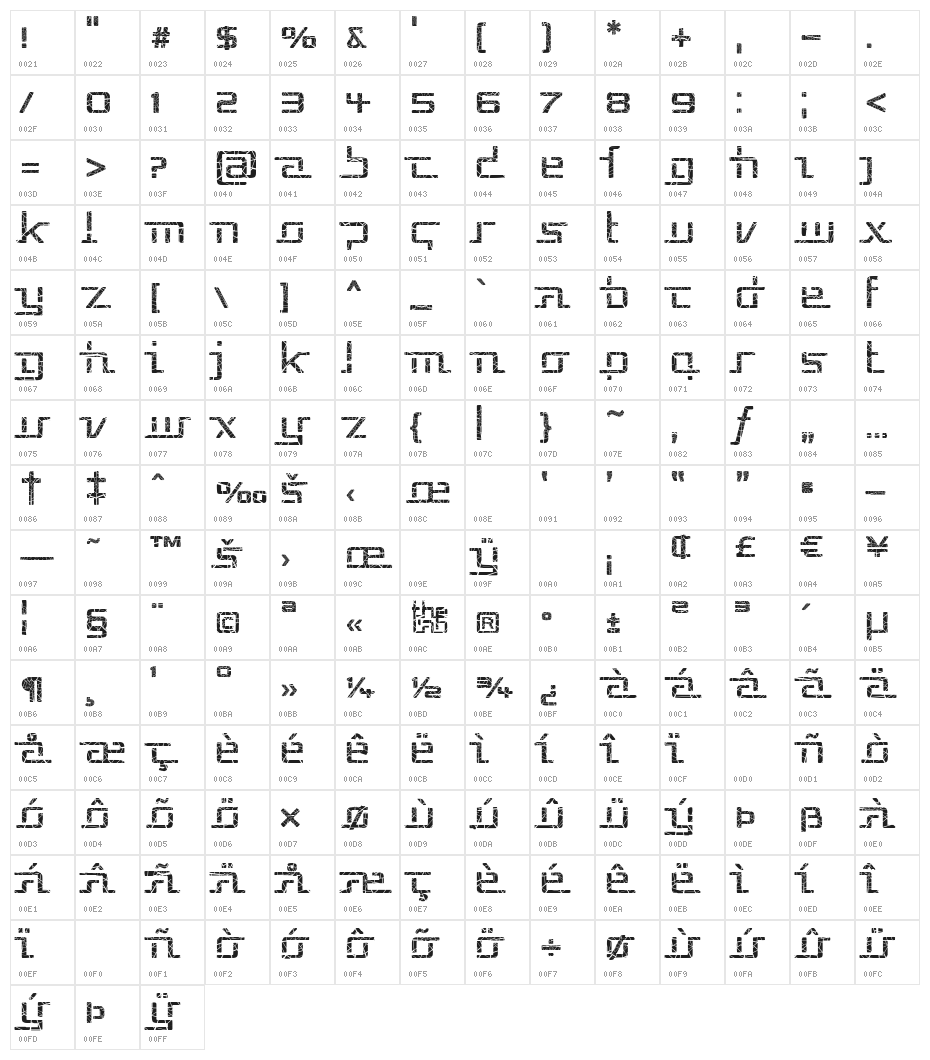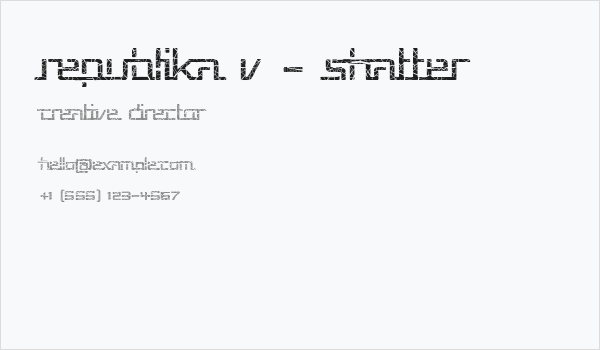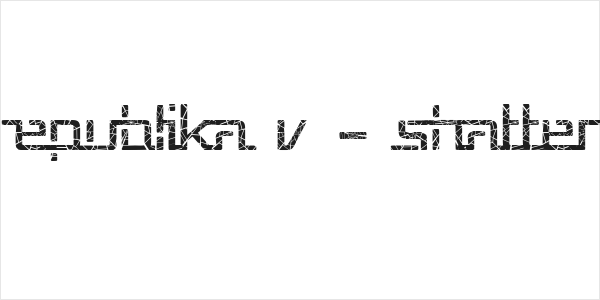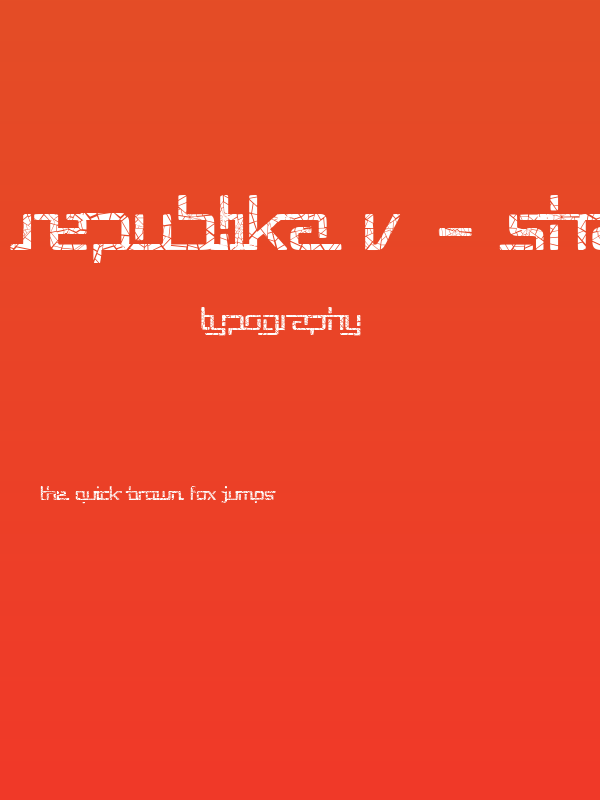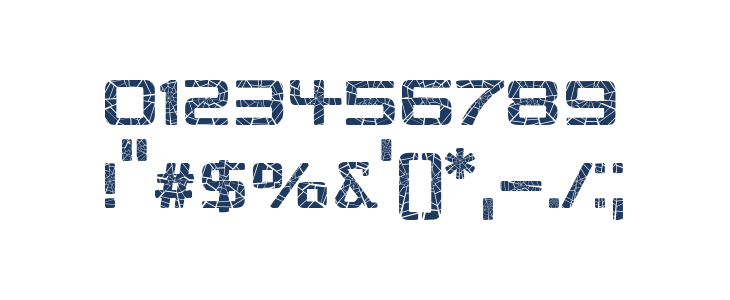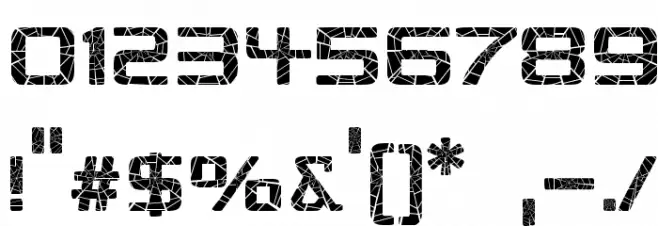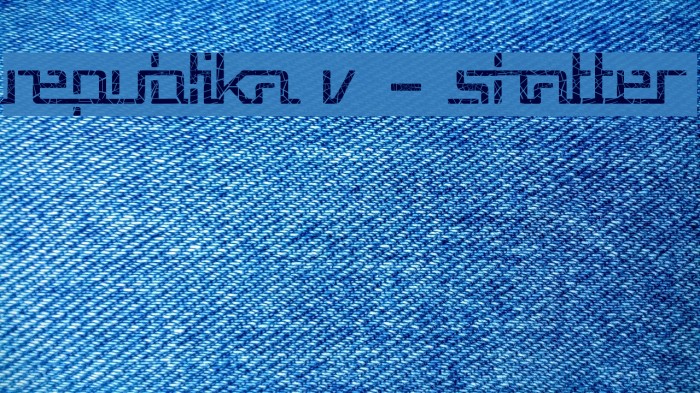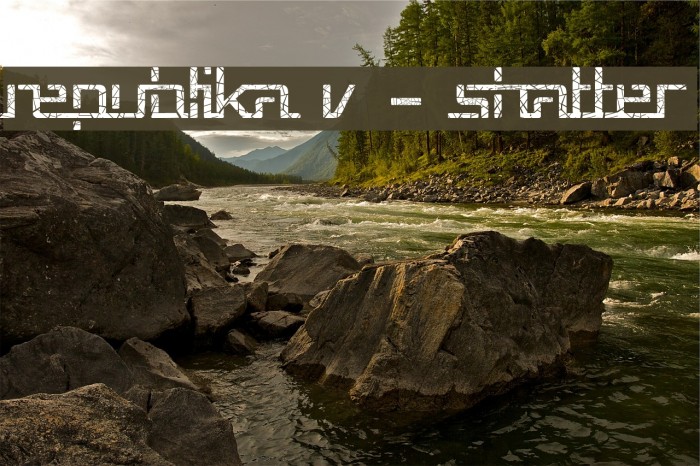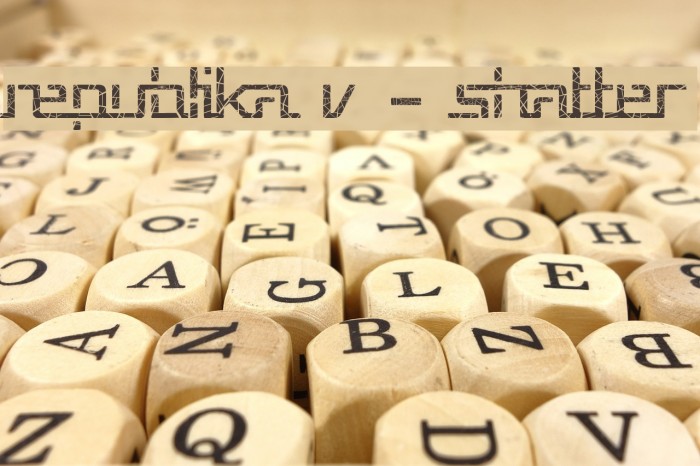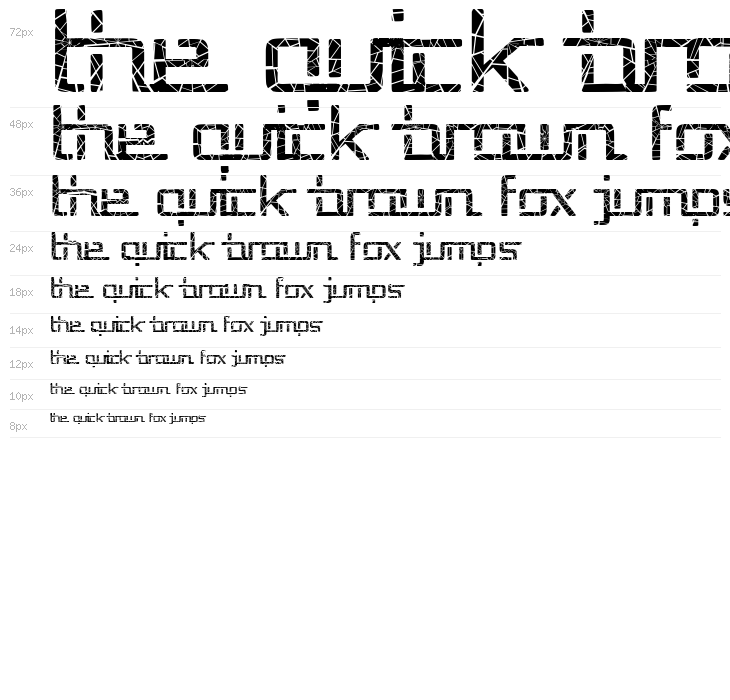
Republika V - Shatter Font
Republika V - Shatter Description
This font features a unique shattered effect, giving each character a fragmented and dynamic appearance. The design is bold and striking, with angular, geometric shapes that create a sense of movement and energy. The shattered pattern is consistent across all characters, including uppercase, lowercase, numbers, and special symbols, making it a cohesive and visually impactful typeface. The font's style is reminiscent of futuristic or digital aesthetics, suitable for projects that require a modern and edgy look. Its distinct appearance makes it ideal for attention-grabbing headlines or logos.
| Proposed Projects | Ideal for digital art, video game titles, sci-fi posters, and modern branding. |